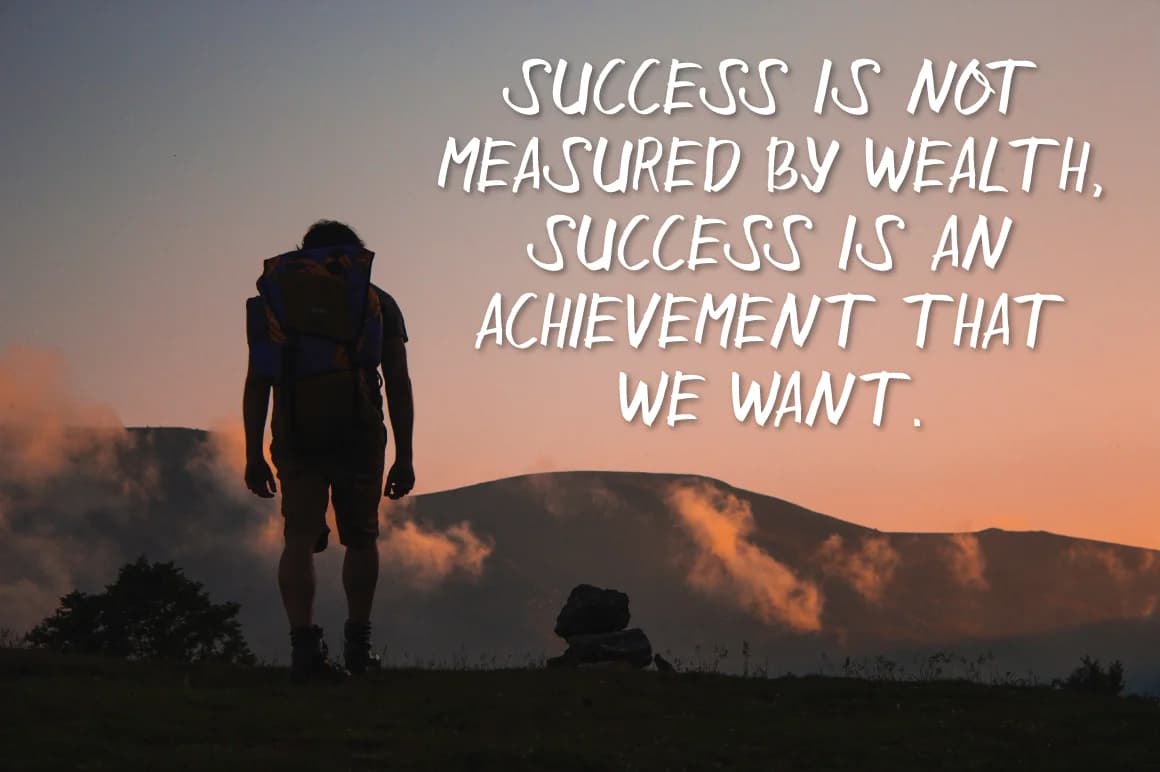
1 / 6About Sangkalaen Font
Sangkalaen Font by Atjcloth Studio is a flowing handwritten script that brings organic character to contemporary typography while maintaining professional legibility. The typeface draws from natural pen movements and hand-drawn letterforms, combining personal warmth with design polish suitable for both prominent display work and readable body text applications across digital and print mediums.
This script excels for wedding invitation suites that demand elegance and personality, boutique product packaging where distinctive branding sets brands apart, event stationery collections for celebrations and announcements, and artisan label design for independent sellers building their visual identity. The font's graceful baseline and fluid transitions between letters make it especially well-suited to luxury brand materials, editorial magazine spreads, and greeting card collections that value handmade aesthetic appeal.
Beyond traditional design software integration, Sangkalaen works reliably with cutting machines and equipment used in crafting communities, enabling creation of personalized vinyl decals, heat transfer applications, and handmade signage projects. The script's consistent spacing ensures legibility across scaling, whether rendered at small label sizes or large format applications. Access Sangkalaen Font on Creative Fabrica and discover how its distinctive handwritten voice can enhance your brand communications and creative projects.
Sangkalaen Font is a script font that shines as a display or heading face. Pair it with a clean sans-serif or serif font for body text β the contrast creates a clear hierarchy while the two styles stay balanced and easy to read.